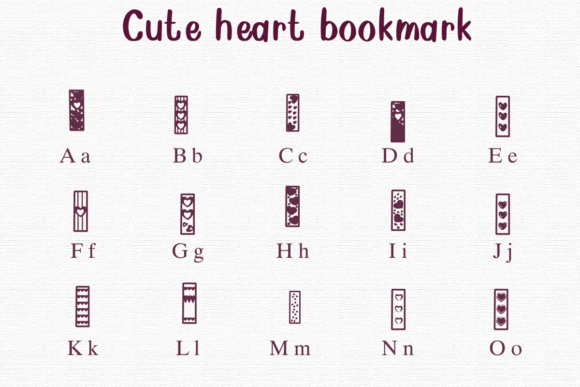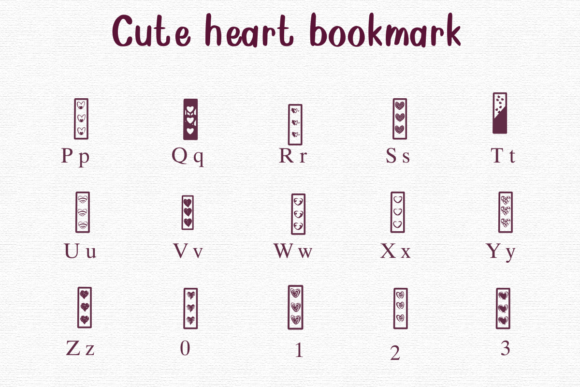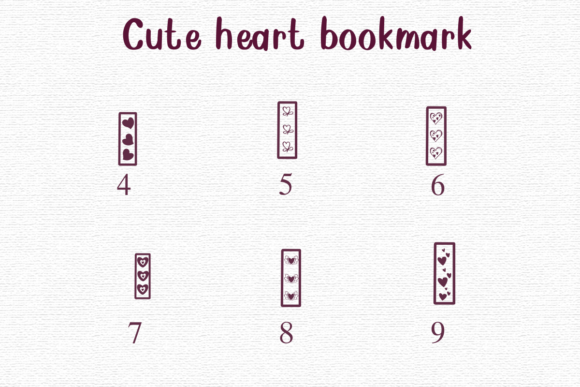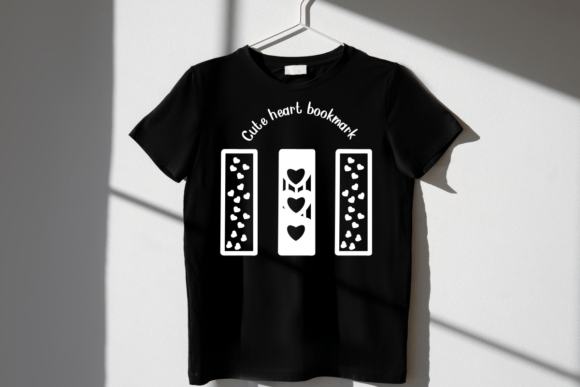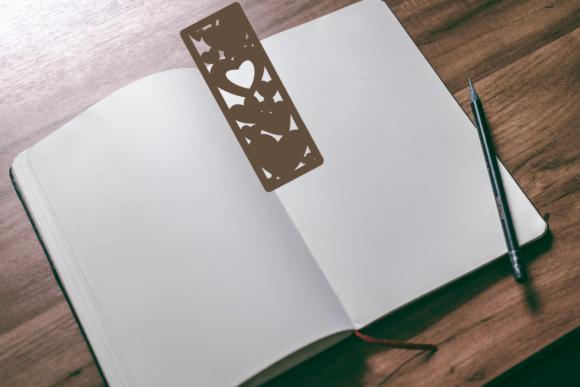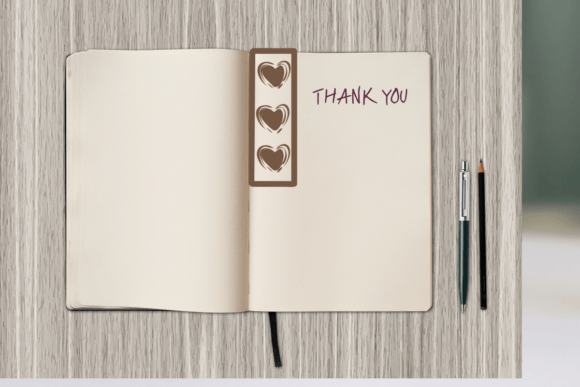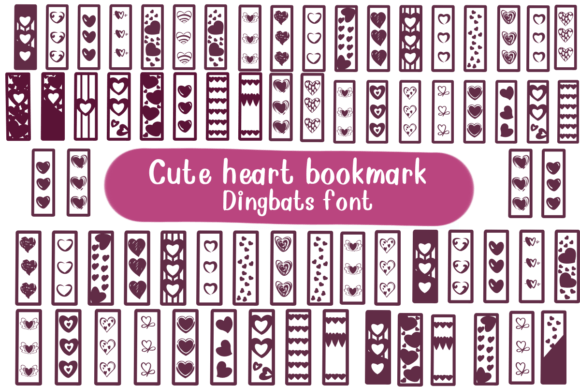
Cute Heart Bookmark Font: Add a Touch of Whimsy to Your Creative Projects
Are you a designer, crafter, or DIY enthusiast looking for a unique and charming font to add a personal touch to your projects? Look no further than the Cute Heart Bookmark Font! This delightful dingbats font features a sketch style theme that’s perfect for creating visually appealing and heartfelt designs.
What is Cute Heart Bookmark Font?
Cute Heart Bookmark Font is a dingbats font that showcases a collection of adorable heart-shaped bookmarks, perfect for adding a touch of whimsy to your creative projects. The font’s sketch style theme gives it a hand-drawn, organic feel that’s ideal for designs that require a personal and sentimental touch.
Uses for Cute Heart Bookmark Font
This versatile font can be used to enhance a wide range of creative projects, including:
- Wedding invitations and stationery: Add a romantic touch to your wedding designs with the Cute Heart Bookmark Font.
- DIY crafts: Use the font to create personalized crafts, such as handmade cards, gift tags, and decorations.
- Decorations: Add a touch of whimsy to your party decorations, garlands, and other celebratory designs.
- Logos and branding: Use the font to create a unique and memorable logo for your business or brand.
- Social media graphics: Add a personal touch to your social media graphics, such as Instagram posts and Facebook covers.
Benefits of Using Cute Heart Bookmark Font
Here are just a few benefits of using the Cute Heart Bookmark Font in your creative projects:
- Unique and eye-catching: The font’s sketch style theme and heart-shaped bookmarks make it a standout choice for designers and crafters.
- Versatile: The font can be used for a wide range of creative projects, from wedding invitations to DIY crafts.
- Customizable: You can use the font to create custom designs that reflect your personal style and brand.
Tips for Using Cute Heart Bookmark Font
Here are a few tips for getting the most out of the Cute Heart Bookmark Font:
- Experiment with different colors: Try pairing the font with different colors and textures to create a unique and eye-catching design.
- Mix and match: Combine the font with other fonts and design elements to create a custom look that reflects your brand or personal style.
- Use it sparingly: Use the font sparingly to add a touch of whimsy to your design, rather than overwhelming the viewer.
The Cute Heart Bookmark Font is a charming and versatile dingbats font that’s perfect for designers, crafters, and DIY enthusiasts. With its sketch style theme and heart-shaped bookmarks, this font is sure to add a touch of whimsy and personality to your creative projects. Whether you’re creating wedding invitations, DIY crafts, or social media graphics, the Cute Heart Bookmark Font is a great choice for anyone looking to add a little extra something special to their designs.